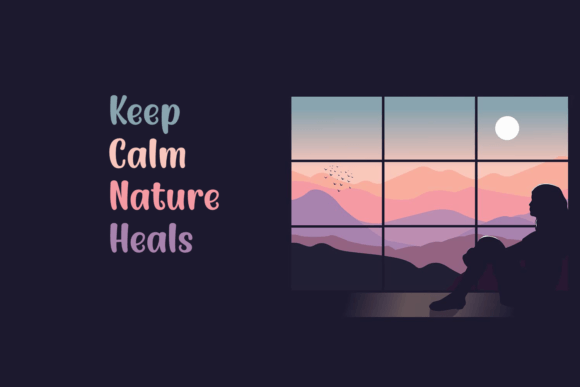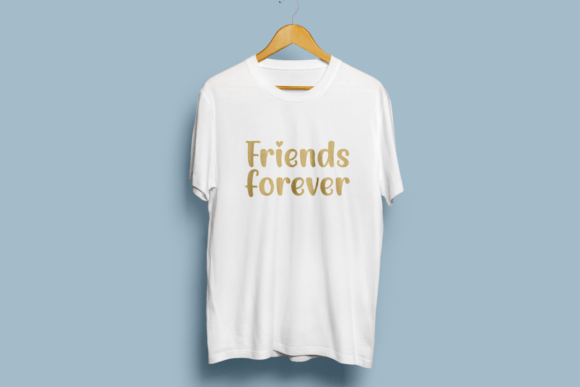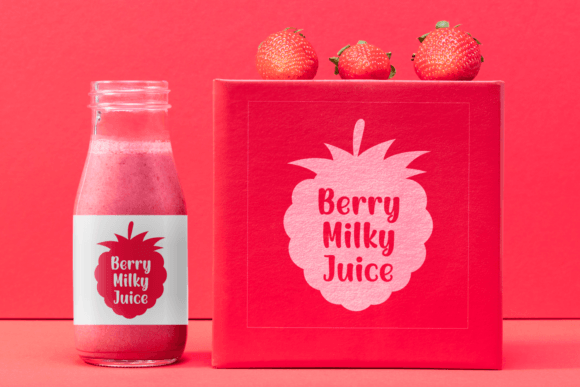
Introduction to Just Quiet Font
As you sit at your desk, surrounded by scraps of paper, empty coffee cups, and the faint glow of your computer screen, you finally land on that one perfect idea. The words start flowing, and your creative project begins to take shape. You know exactly which font will elevate your design from good to great – the elegant and refined Just Quiet Font.
With its delicate curves and feminine feel, Just Quiet Font is the perfect addition to any project. Whether you’re designing a wedding invitation, a birthday card, or a heartfelt letter, this beautiful script font will add a touch of sophistication and elegance. Its high-quality design makes it a valuable resource for designers, and the fact that it’s available for free download only adds to its allure.
For designers, having access to high-quality design resources like Just Quiet Font can be a game-changer. With its transparent background and versatility, this font is a must-have for any creative project.
Key Features of Just Quiet Font
- Transparent background option for seamless integration into creative projects
- High-quality design resource suitable for a variety of applications, including logos, typography, and branding
- Unique characteristics include subtle texture and nuanced line work, making it an ideal choice for designers seeking a distinctive look
- Part of a larger design collection, offering a cohesive aesthetic for creative projects
Honest Review: Just Quiet Font
I recently came across the Just Quiet Font and I must say, it’s a lovely addition to my design resource library. The font is available for free download, which is a huge plus for designers like me who are always on the lookout for high-quality design assets.
What works well is the font’s clean and minimalist aesthetic. It’s perfect for creative projects that require a touch of sophistication without being too flashy. The transparent background makes it easy to combine with other design elements, giving you plenty of flexibility when working on a project.
- ✨ Great for creative projects that require a clean aesthetic
- ✨ High-quality design asset
- ✨ Transparent background for easy customization
One limitation I’ve noticed is that the font is not suitable for projects that require bold, attention-grabbing typography. It’s best used for designs where subtlety is key.
Overall, I’m impressed with the Just Quiet Font and would definitely recommend it to designers who are looking for a reliable, high-quality design resource.
The Just Quiet Font is commonly used in design projects such as logos, business cards, and brochures. Its transparent background and high-quality design make it perfect for use in creative projects that require a professional touch.